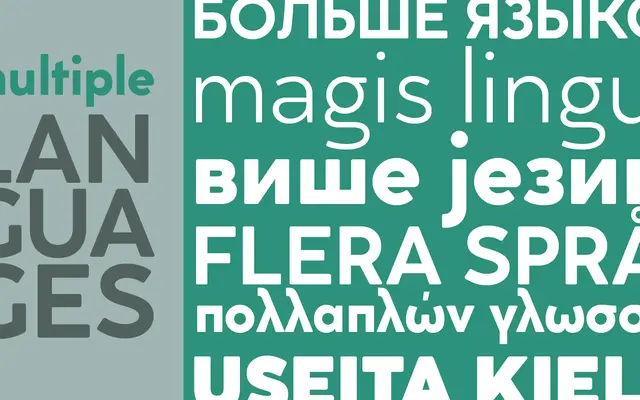
Cocogoose Classic
Zetafonts · Francesco Canovaro, Cosimo Lorenzo Pancini, Andrea Tartarelli · 2019
A geometric sans with slightly rounded corners and a reduced x-height, developed in 2019 as a refined subfamily of the original Cocogoose with expanded OpenType features and over 1000 glyphs.
Cocogoose Classic branches off the original 2012 Cocogoose design, retaining the geometric uppercase forms while introducing a new lowercase with a smaller x-height and round dots. Eight weights from Thin to Black each come with a matching italic, and the glyph set exceeds 1000 characters with coverage across Latin, Greek and Cyrillic scripts for 218 languages. OpenType features include small capitals, positional numerals, discretionary ligatures and stylistic alternates.
Described explicitly as a geometric sans serif with very low contrast and slightly rounded corners; the Classic subfamily introduces a smaller x-height and round dots while retaining the geometric uppercase structure of the original Cocogoose.